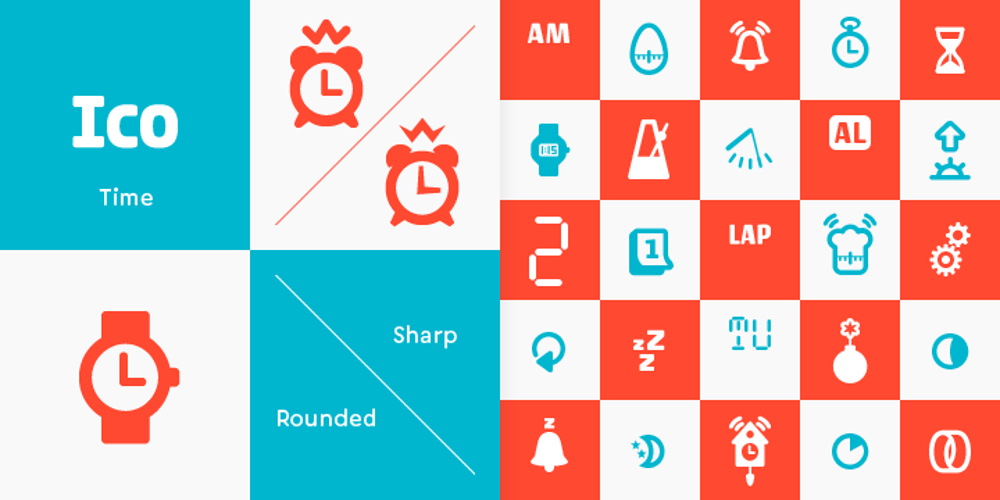
Ico Time Font Family was designed by Ondrej Jób and published by Setup Type. Ico Time contains 2 styles and family package options. Ico Time is a set of 115 symbols depicting time, clocks, watches and rhythm. To name a few, there are alarm clocks, binary watch, moon phases, calendars, 7-segments digits, hourglasses, sun dial as well as infinity symbol. The style of Ico is inspired by the look of symbols used on the classic monochrome LCD displays. The symbols are monolinear with rounded corners, composed of a smallest possible number of elements. In addition, the rounded style is accompanied by a second style with sharp corners and more detailed drawing. All symbols of Ico share the same width, making the font compatible with the LCD typeface ION. Together, they are the perfect solution for LCD style typography. Ico Time is a part of a larger set. Have a look at the other available Ico fonts and don’t forget to check back soon for even more additions.